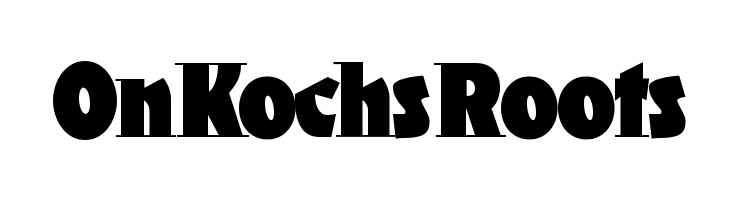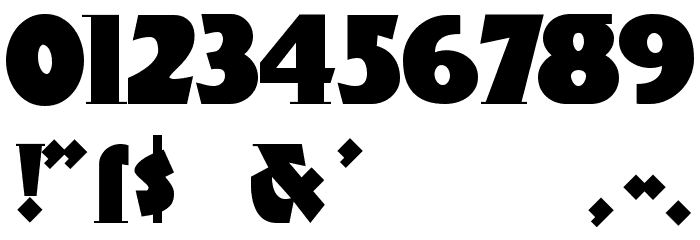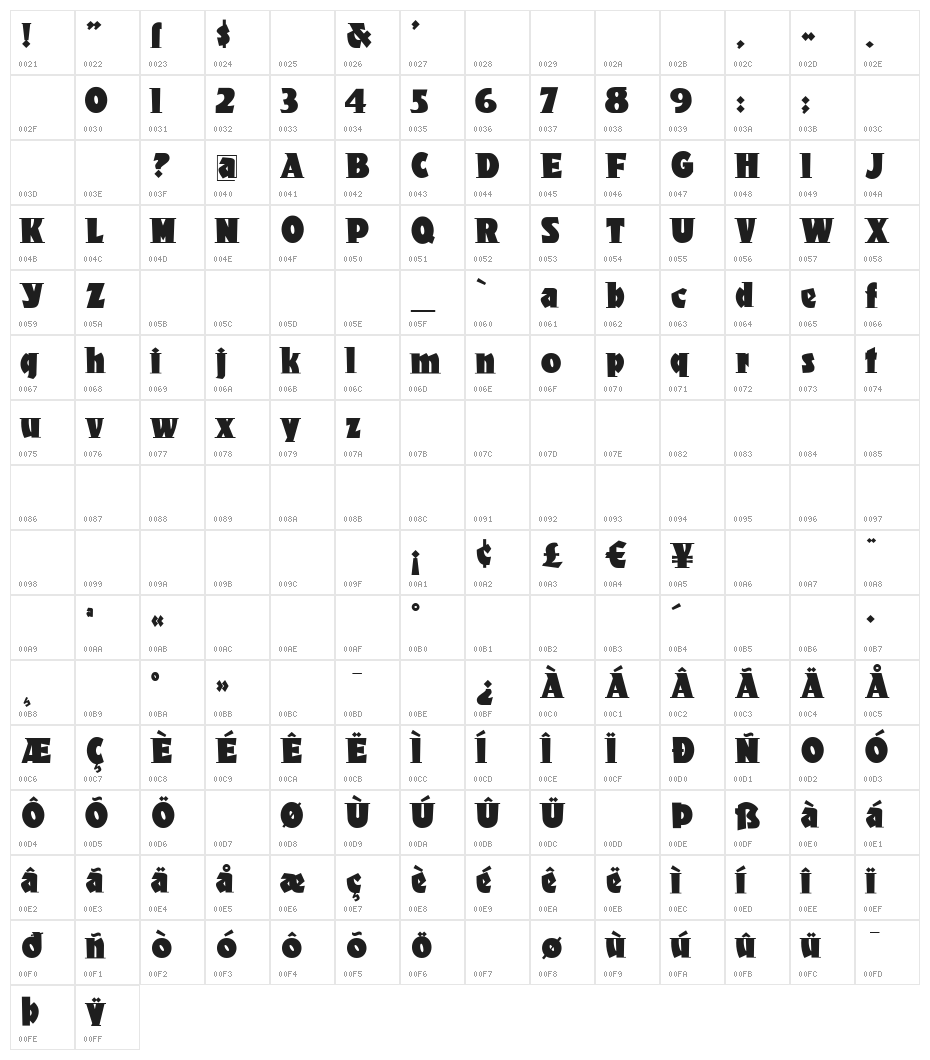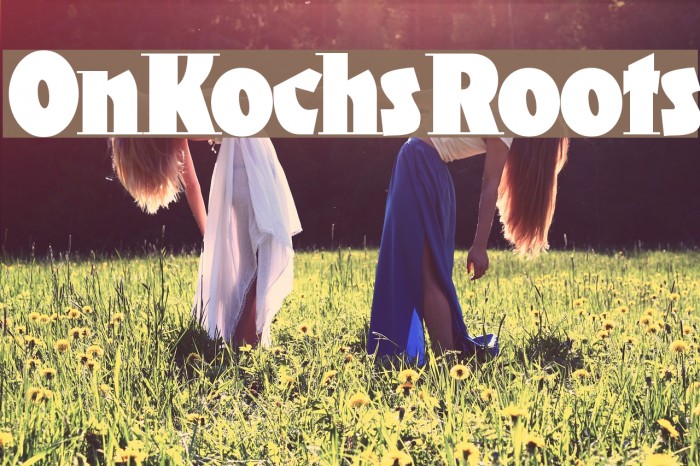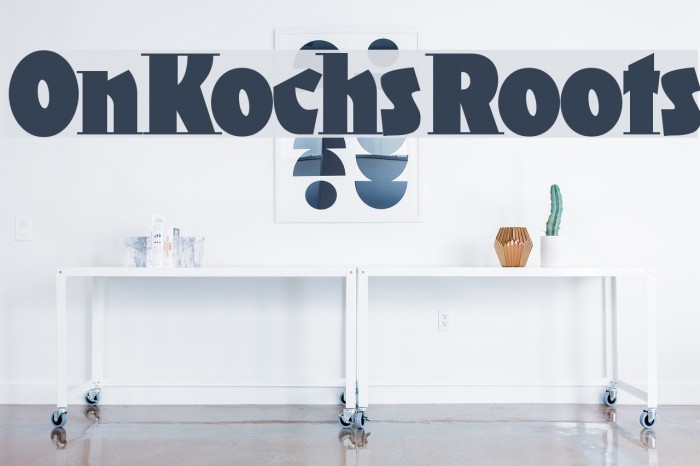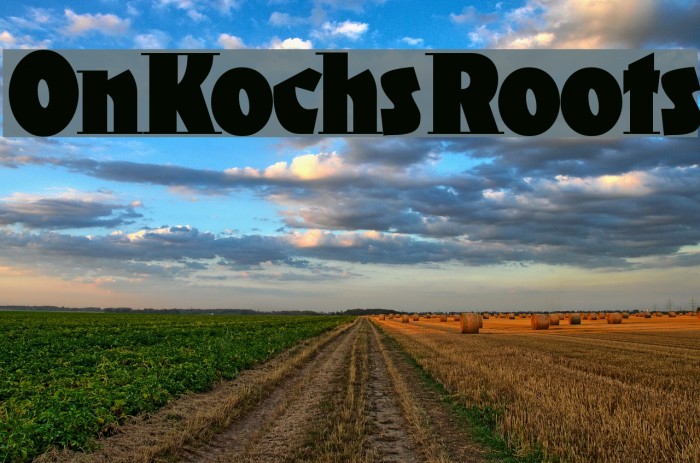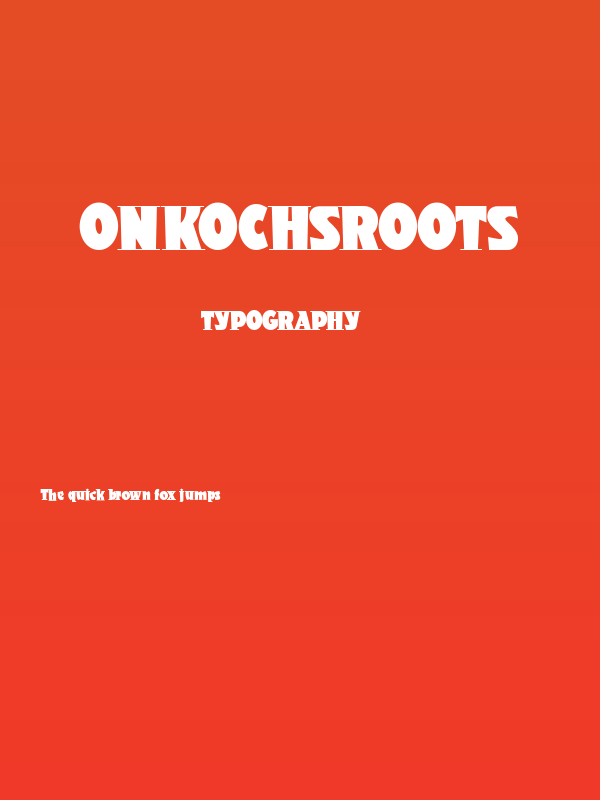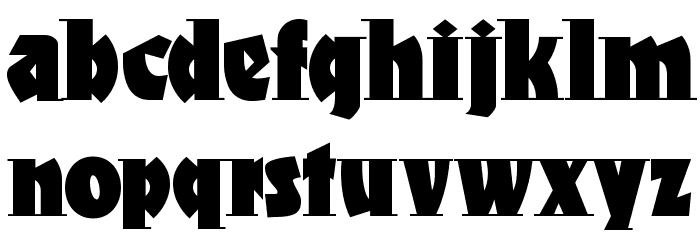
OnKochsRoots Font
OnKochsRoots Description
This font features bold, angular letterforms with a distinct geometric influence, reminiscent of early 20th-century design. The uppercase letters are particularly striking, with sharp edges and a strong presence. The lowercase letters maintain the boldness but introduce a slight curvature, adding a touch of softness to the overall appearance. The numerals are consistent with the bold style, ensuring readability and impact. Special characters are designed with the same angular and bold characteristics, making them stand out. This font's unique style is ideal for projects that require a strong visual impact, such as posters, headlines, and branding materials.
| Proposed Projects | Perfect for posters, headlines, branding, and any design needing a strong visual impact. |